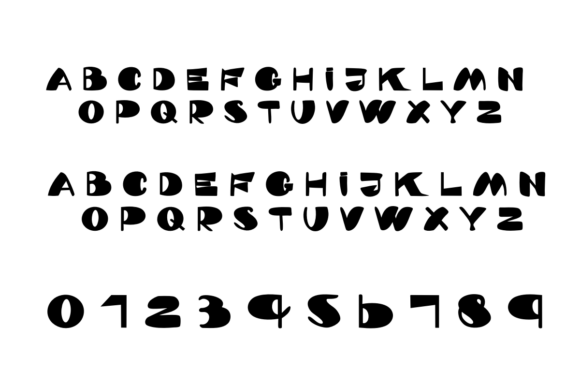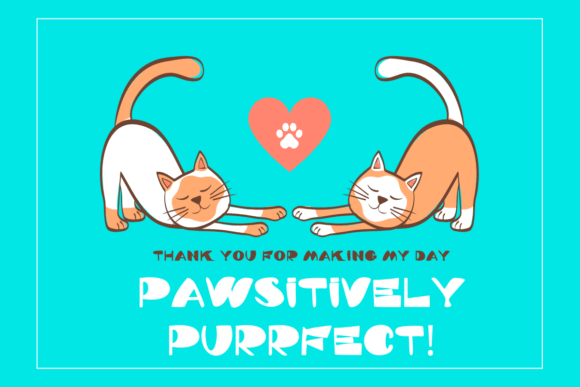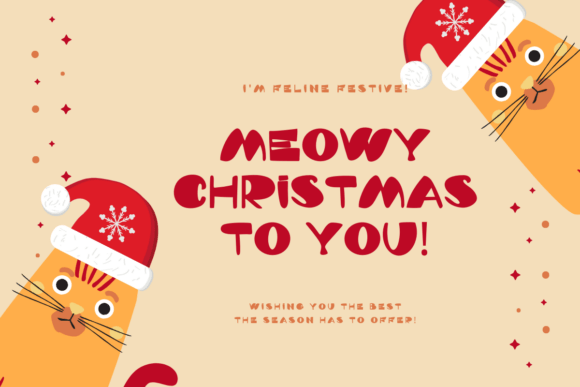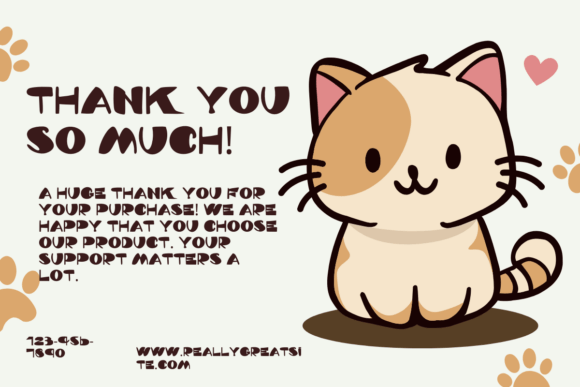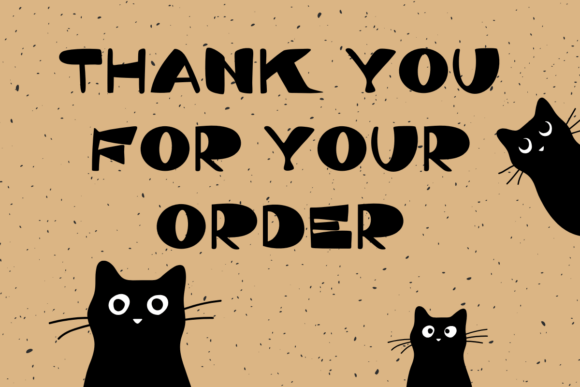
The Purr-fect Font: A Deep Dive into Funny Cat Font
I’ll never forget the time I was working on a project for a children’s book about cats. I had all the illustrations ready, but I was struggling to find the right font to match the playful and whimsical tone of the story. That’s when I stumbled upon the Funny Cat font, and it was love at first sight! 😍 With its bold lettering and feline flair, it was the perfect fit for my project. In this article, I’ll share my experience with Funny Cat font, its features, and how to make the most of it in your designs.
An Honest Review of Funny Cat Font
- ✨ Cute and whimsical design: The Funny Cat font is a treat for the eyes, with its cartoonish charm and playful curves.
- ✅ Perfect for pet-related projects: The font’s feline theme makes it a purr-fect choice for pet-related projects, such as animal shelter logos, pet store branding, or even a cat calendar.
- ✅ Great for children’s books: The font’s playful and fun design makes it an excellent choice for children’s books, especially those with an animal theme.
- ✅ Easy to read: Despite its playful design, the font is easy to read, even in large or small sizes.
While I love the Funny Cat font, there are a few quirks to be aware of:
- 🤔 Limited use cases: The font’s theme is very specific, which might limit its use in certain projects.
- ⚠️ Not suitable for formal projects: The font’s playful design makes it unsuitable for formal projects, such as business reports or academic papers.
The Backstory of Funny Cat Font
The Funny Cat font was designed by a team of creatives who love cats and design. The font was inspired by the playful and whimsical world of cats, with its bold lettering and feline flair. The designers wanted to create a font that’s fun, playful, and perfect for pet-related projects and children’s books.
| Author | Sontaya |
Q: What is the Funny Cat font?
A: The Funny Cat font is a cute and whimsical display font that pairs bold lettering with feline flair.